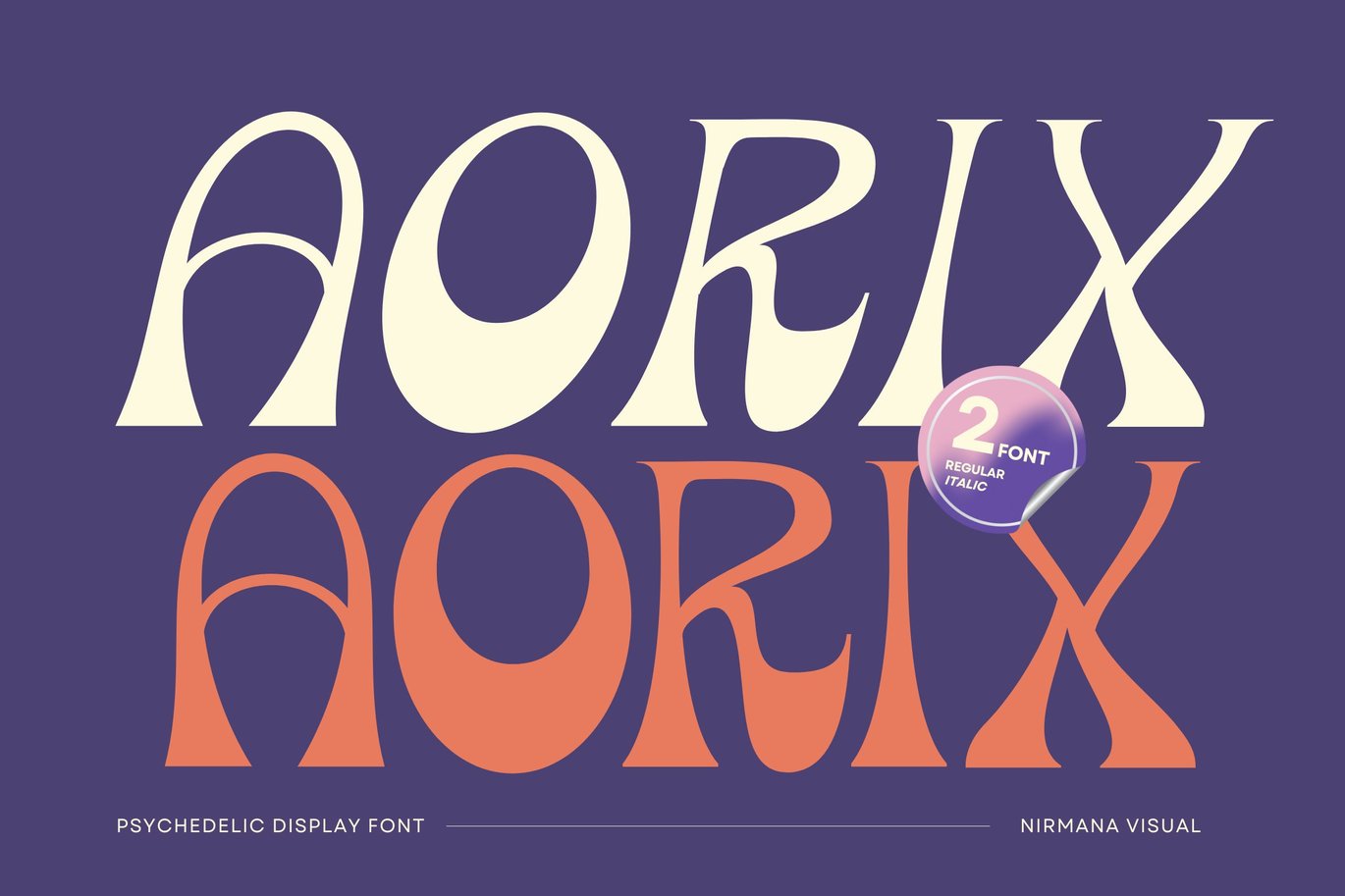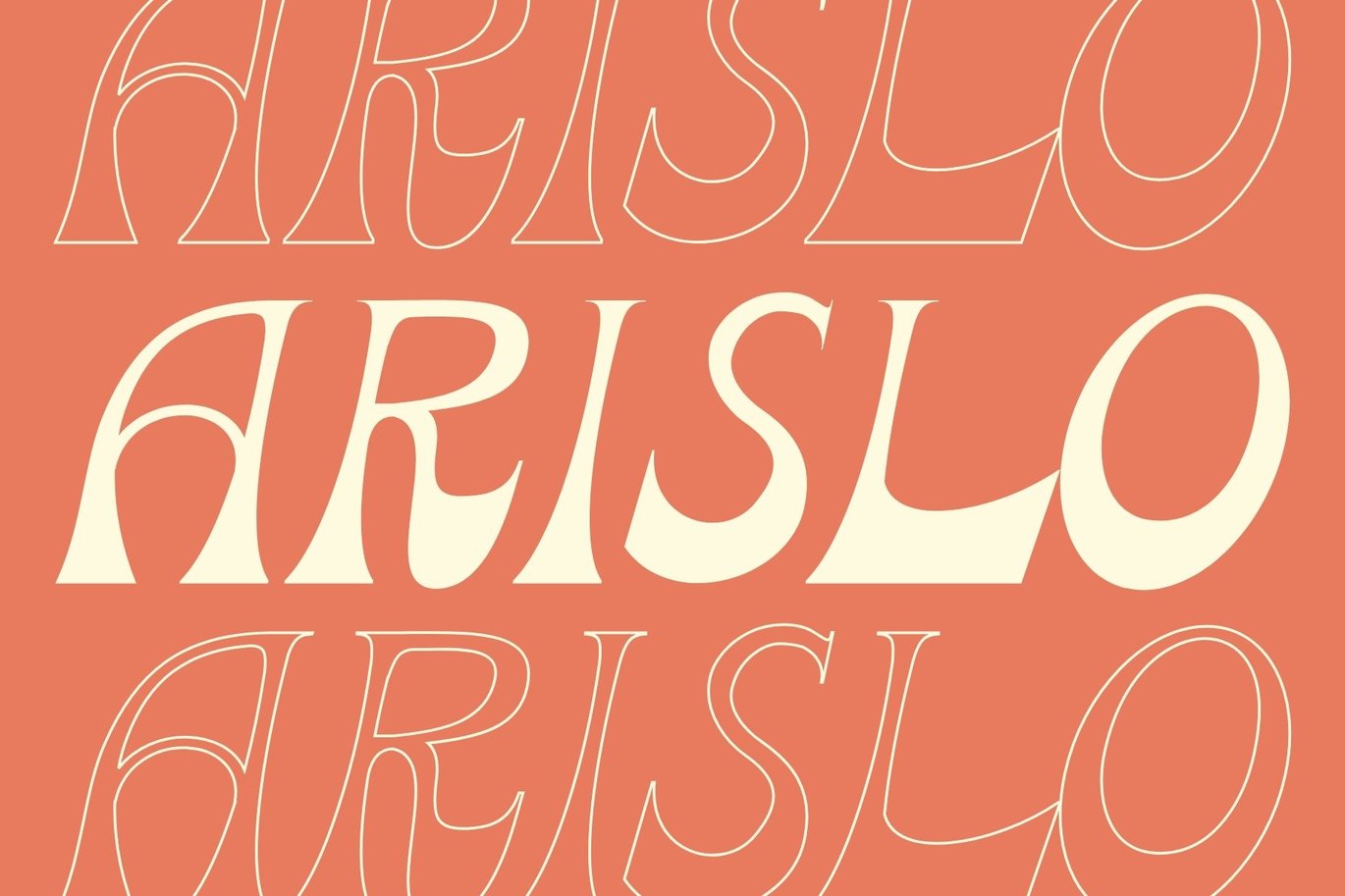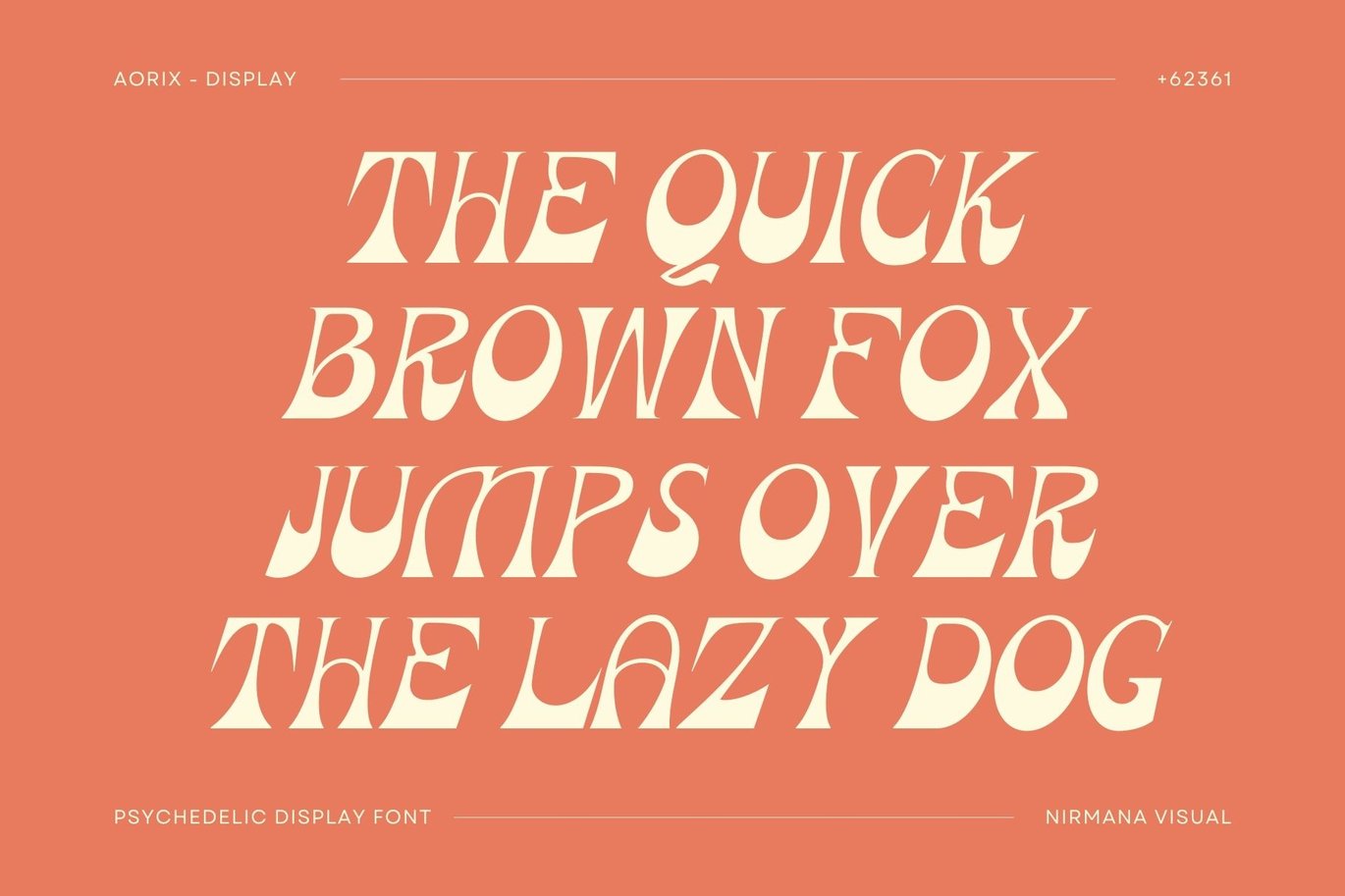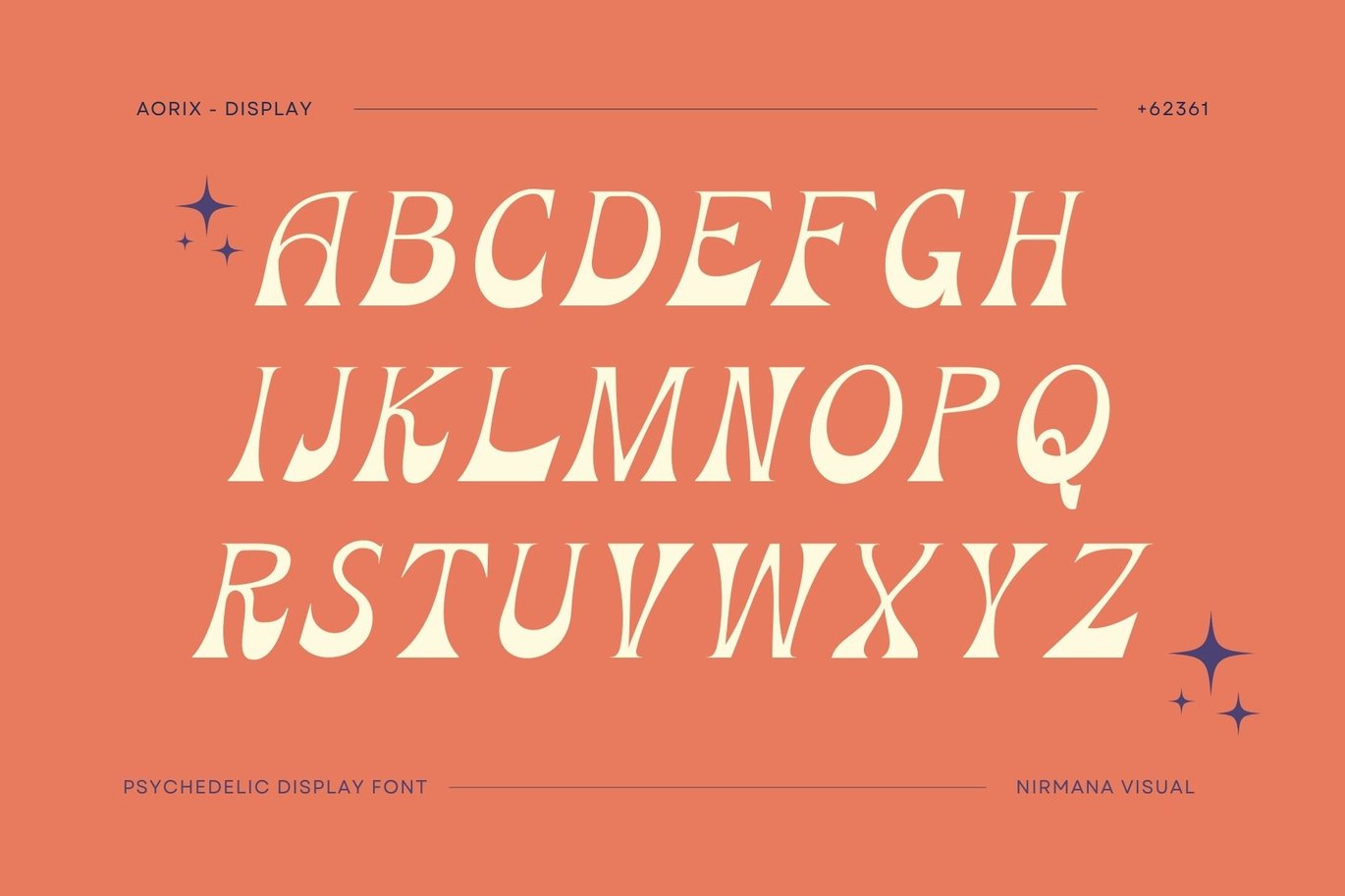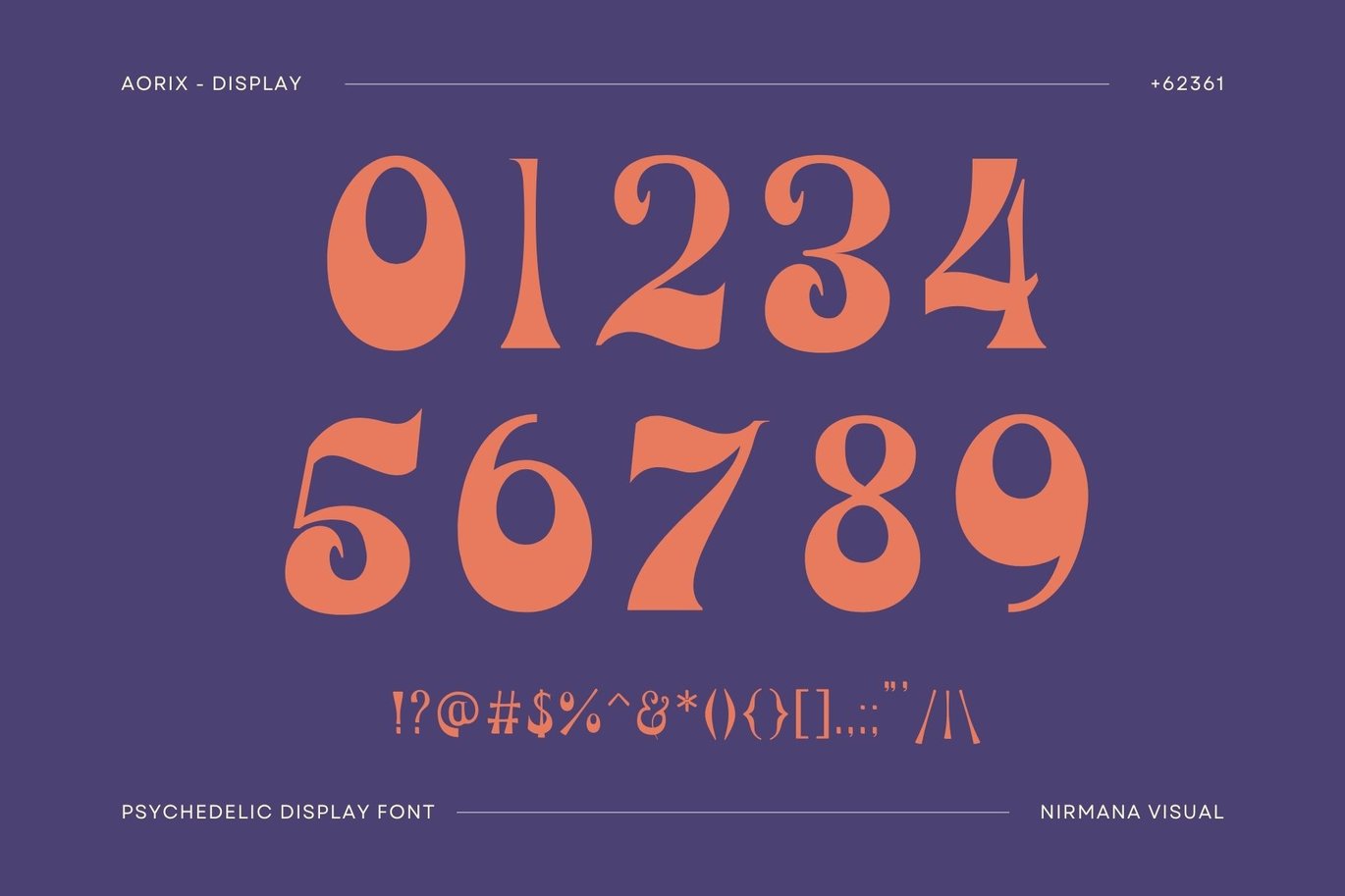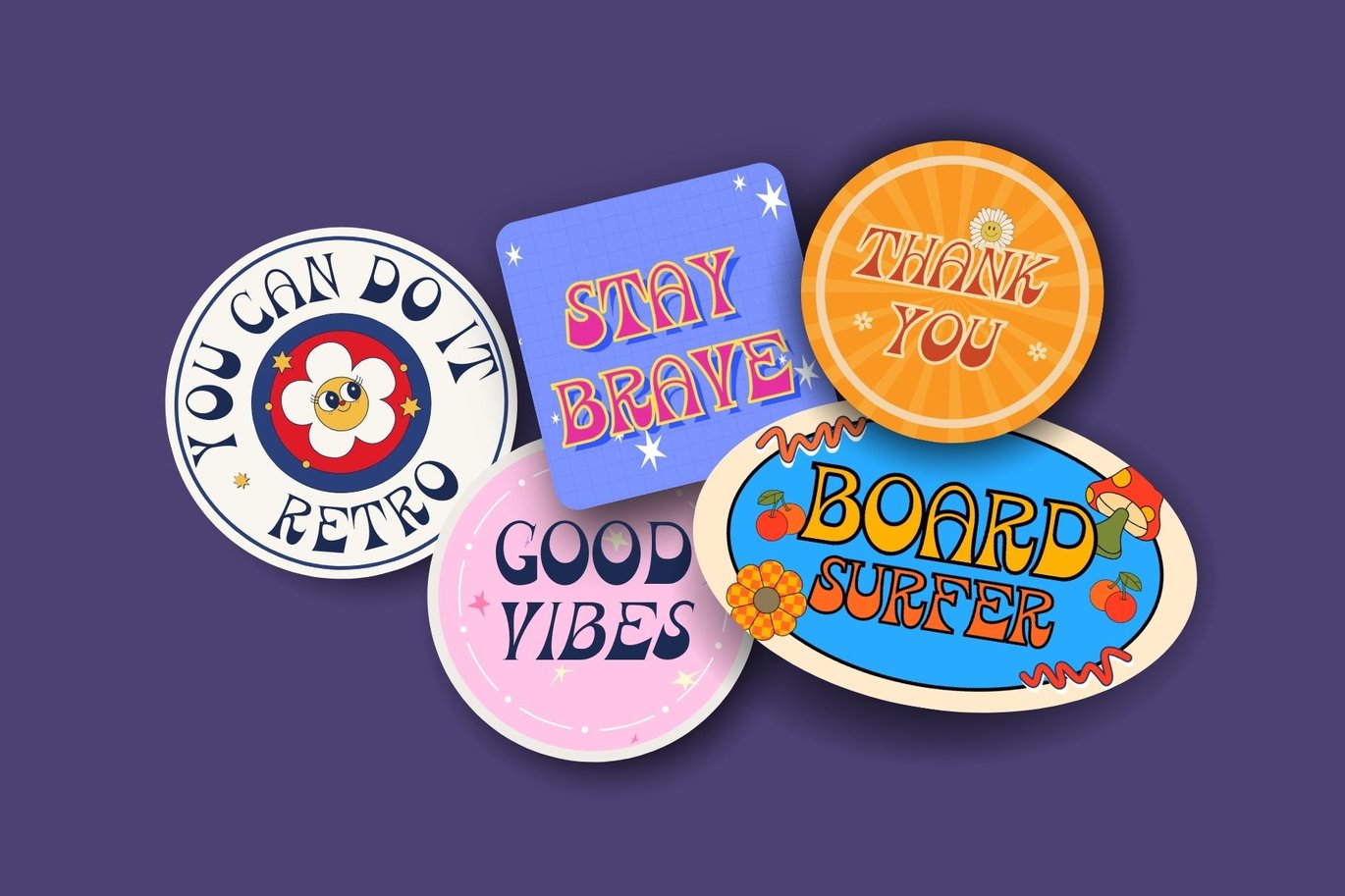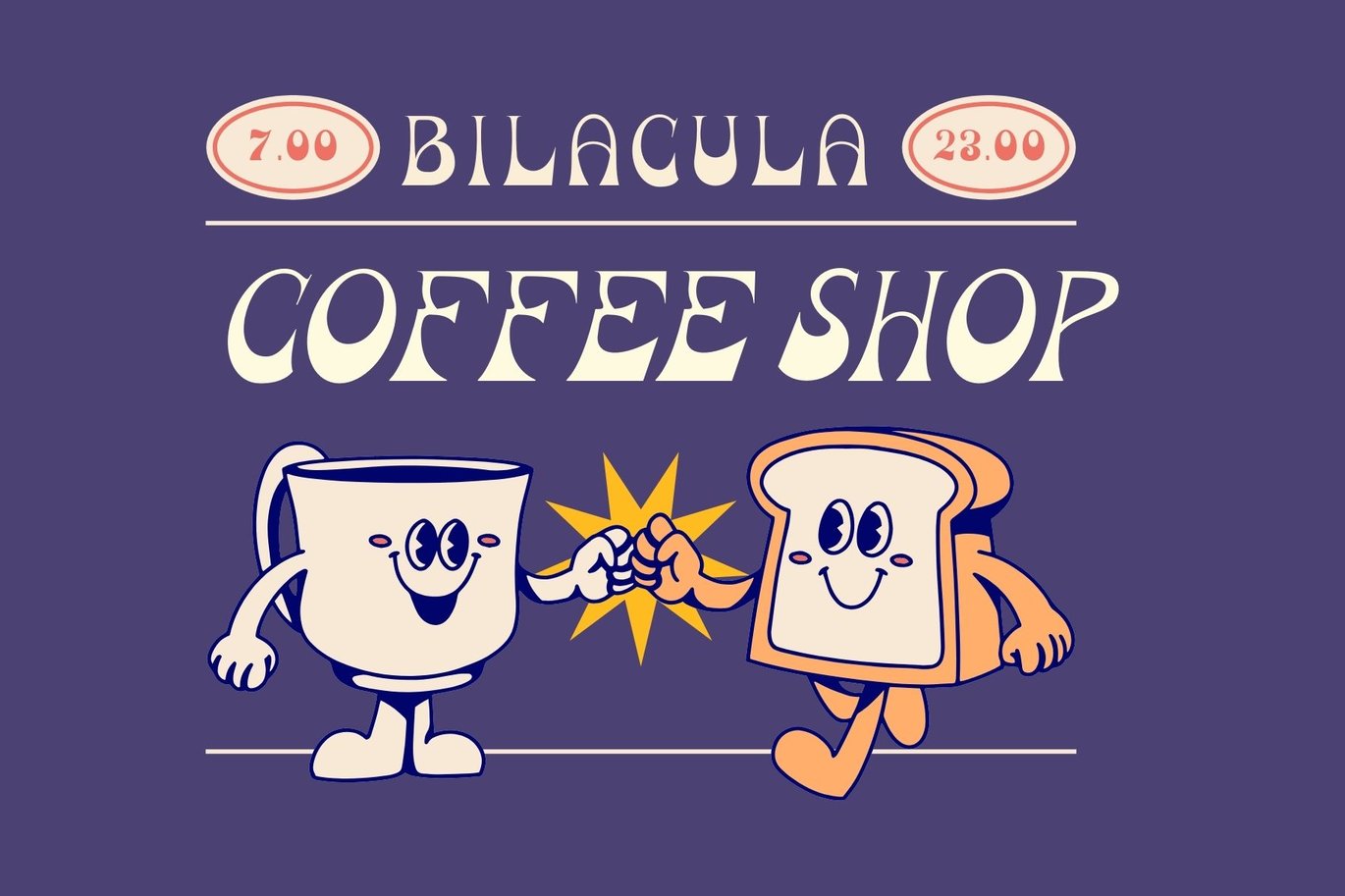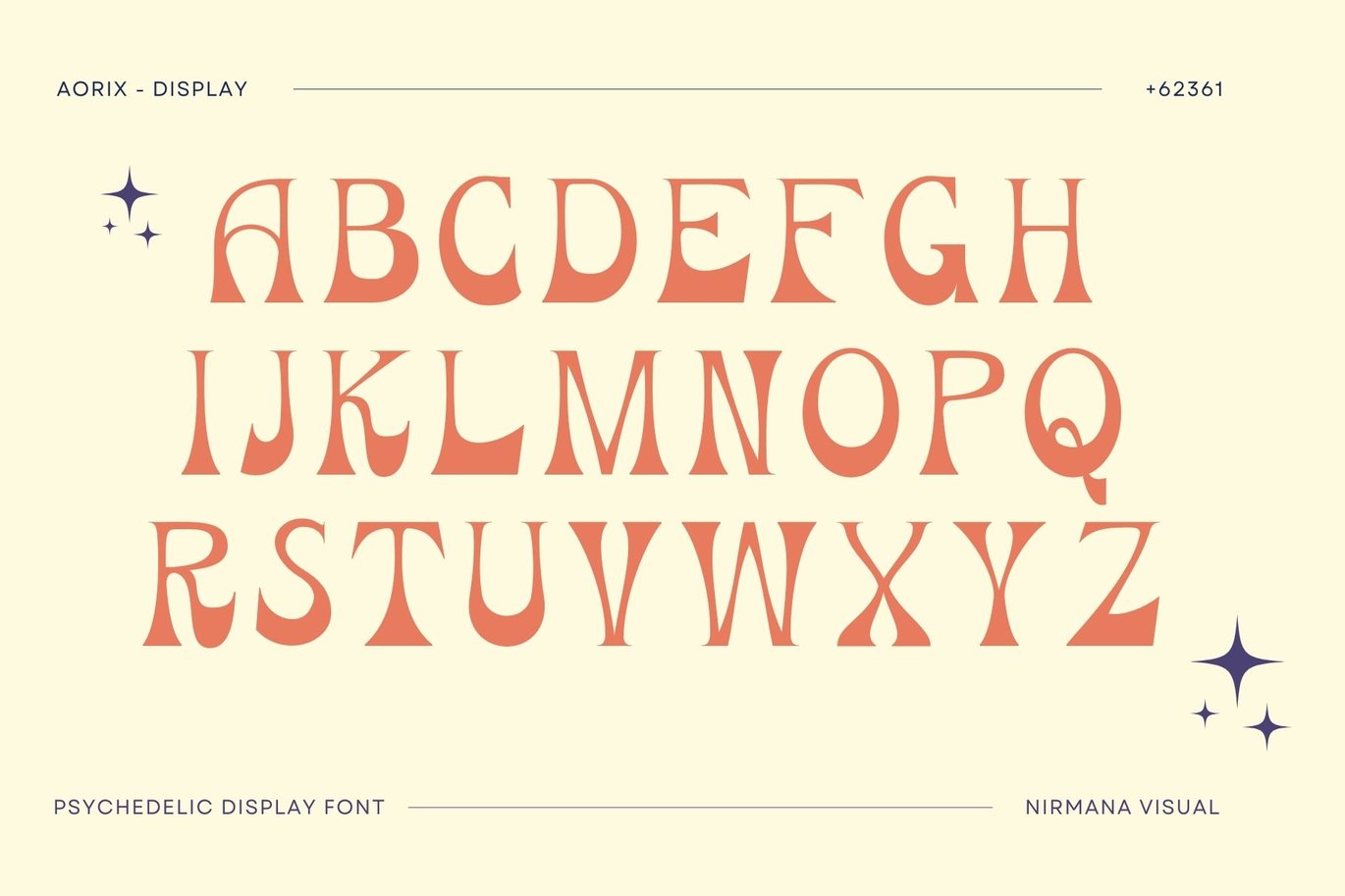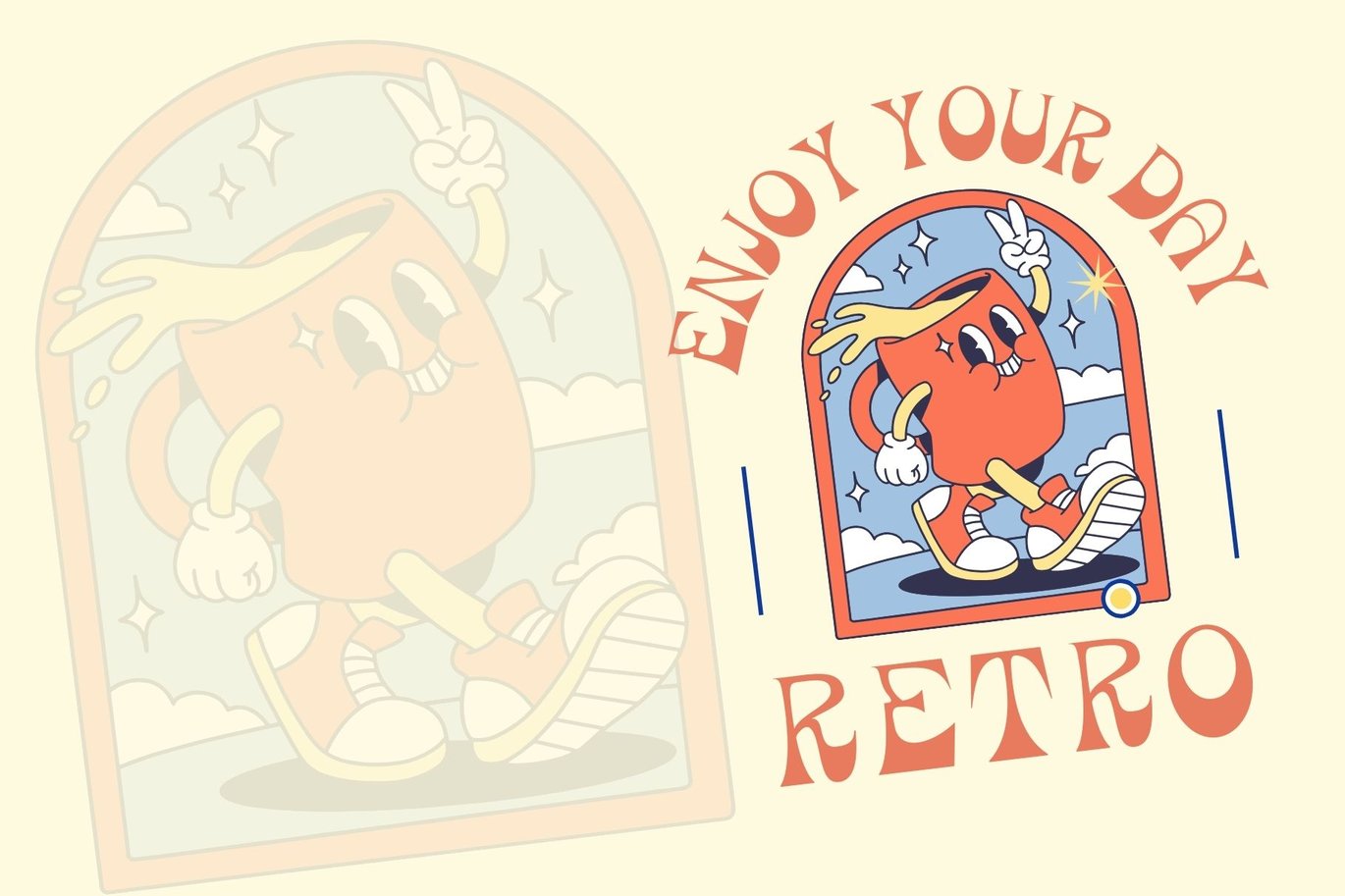
Aorix – Psychedelic Font
Aorix – Psychedelic Display offers beautiful typographic harmony for a diversity of design projects, including logos & branding, social media posts, advertisements & product designs.